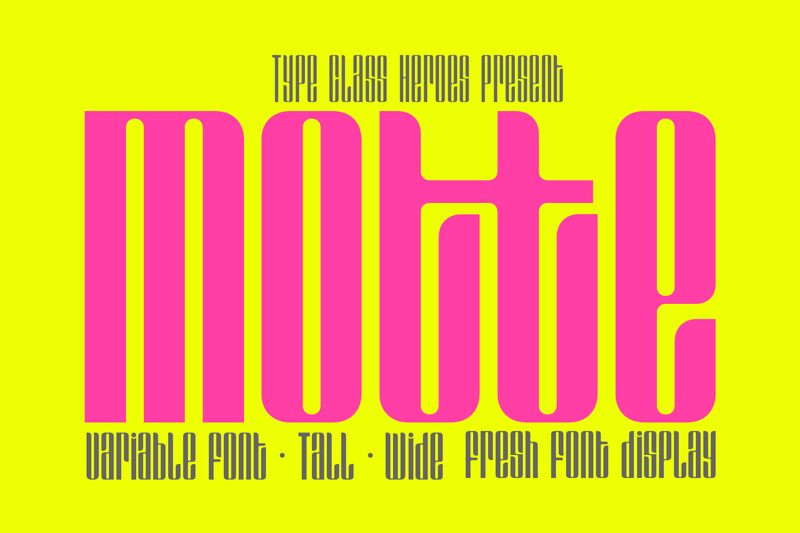
Motte by TypeClassHeroes is a captivating display font that exudes a bold, unapologetic presence. With its condensed width and striking letterforms, this font commands attention, seamlessly blending modern elegance and industrial-inspired aesthetics. The sharp, angular terminals and distinctive kerning create a dynamic, eye-catching visual rhythm that evokes a sense of power and confidence. Motte's versatility shines through its ability to complement a wide range of design styles, from editorial layouts to product branding.
This font's versatility makes it a compelling choice for designers seeking to make a lasting impression. Motte's bold character lends itself well to attention-grabbing headlines, impactful logotypes, and distinctive packaging designs. Its condensed nature also allows for creative typographic arrangements, lending a sense of depth and dimension to any project.